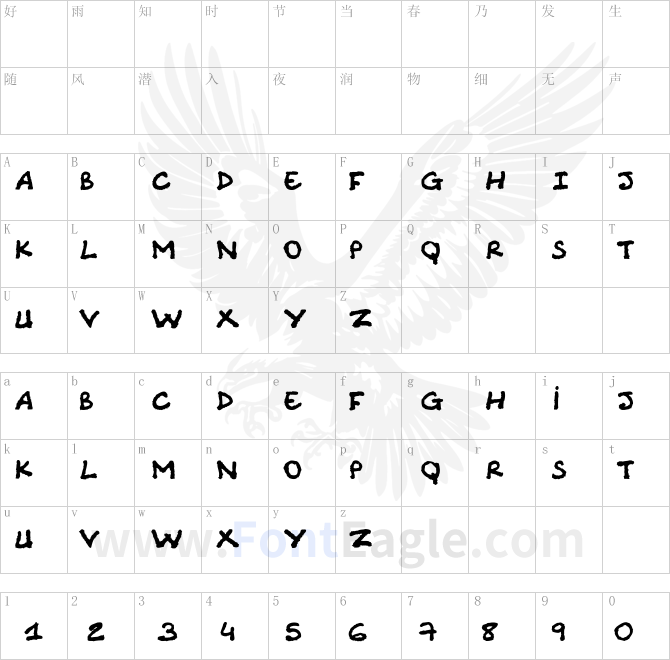
- Font name:Comic Note
- Font Subfamily ID:1.000;pyrs;ComicNote
- Font Full Name:Comic Note Raw
- Postscript:ComicNote
- Font Copyright:Leo Lapasset @ Bitworker – 2012